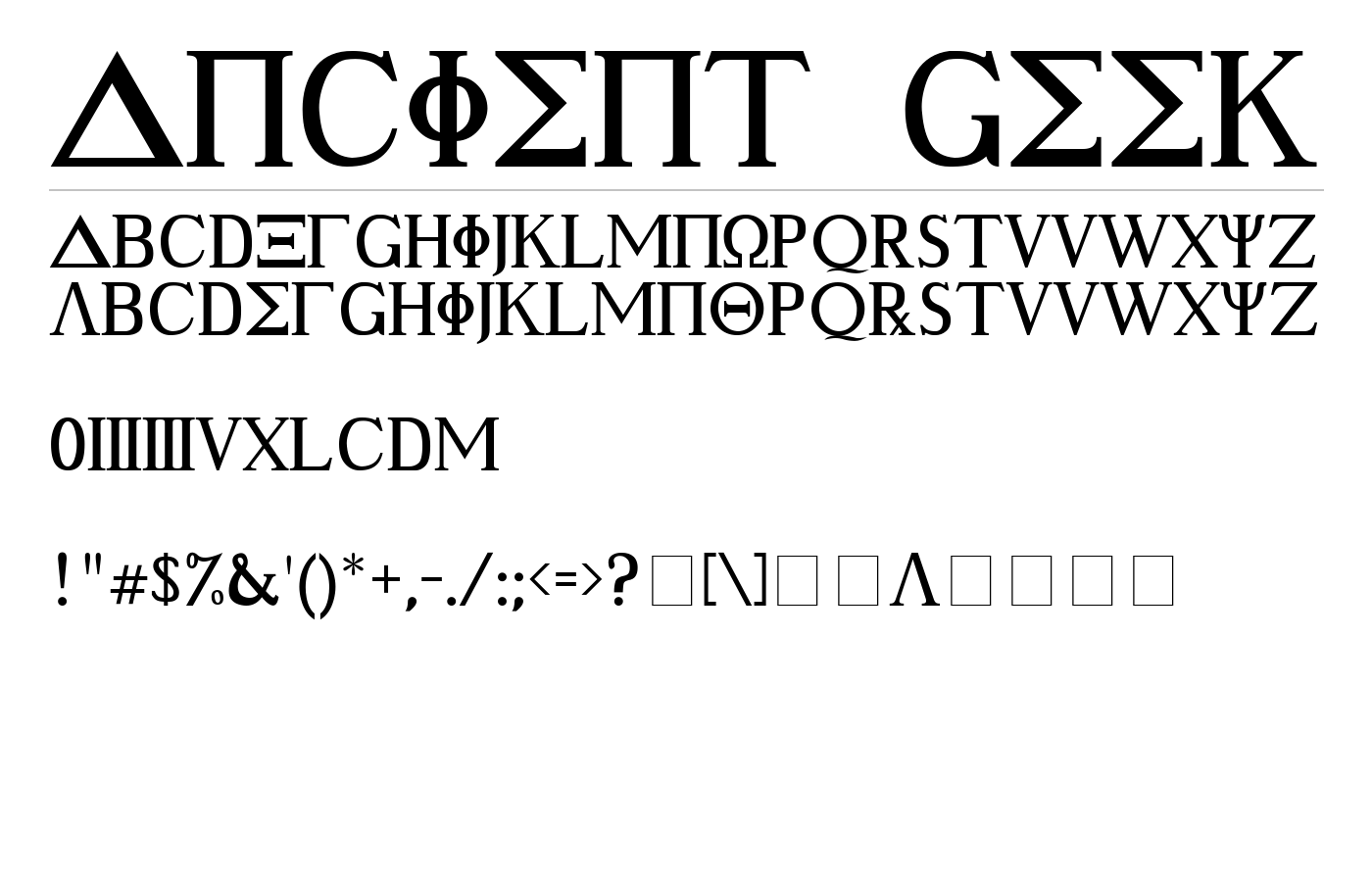
Ancient Geek is a serif typeface inspired by classical Greek lettering, featuring sharp, thin serifs and high contrast between thick and thin strokes. Its elegant and refined shapes with unique geometric elements evoke a historic and scholarly feeling, making it ideal for projects aiming to convey tradition, culture, or classical sophistication. This font works well in logos, editorial designs, and branding where a timeless and intellectual atmosphere is desired.
Ancient Geek Font